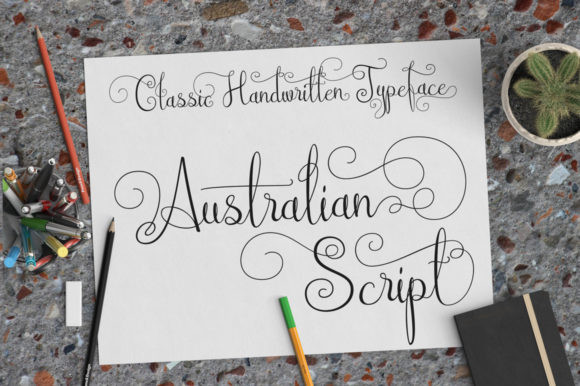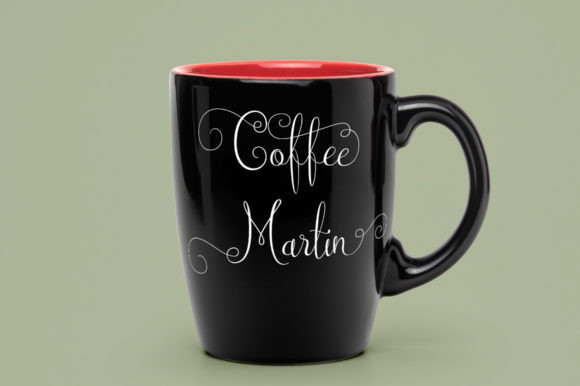
Australian Script Font
Australian Script FontAustralian Script is an incredibly elegant and flowing handwritten font. It is PUA encoded which means you can access all of the glyphs and swashes with ease! It features a varying baseline, smooth lines, gorgeous glyphs and stunning alternates.
Fall in love with its versatile and timeless style and use it to create gorgeous wedding invitations, beautiful stationary art, eye-catching social media posts, and much more!